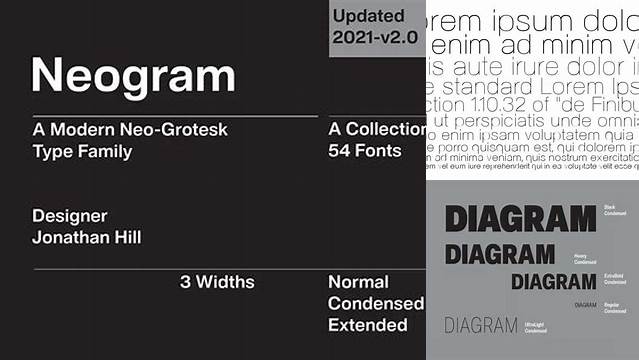
Are you on the hunt for a modern, versatile, and aesthetically pleasing font for your next design project? Well, guys, you've landed in the right spot! We're diving deep into the world of the Neogram font family, a fantastic typeface that's been making waves in the design community. And the best part? We'll guide you on how to snag it for free. So, buckle up and let's get started!
What Makes Neogram Font Family Special?
The Neogram font family isn't just another typeface; it's a thoughtfully crafted design that blends modern sensibilities with timeless elegance. This makes it incredibly versatile, suitable for a wide range of applications. From crafting compelling headlines and body text for websites to designing eye-catching posters and branding materials, Neogram has got you covered. The clean lines and balanced letterforms exude a sense of sophistication and readability, ensuring that your message is not only seen but also understood. What truly sets Neogram apart is its ability to convey both professionalism and approachability, a rare combination in the world of typography. This makes it an ideal choice for businesses and individuals looking to establish a strong, trustworthy brand identity. The font's versatility extends beyond its aesthetic appeal; it's also technically sound, rendering beautifully across various platforms and devices. This is crucial in today's digital landscape, where your designs need to look pixel-perfect on everything from a smartphone to a large desktop monitor. Neogram's designers have clearly paid meticulous attention to detail, ensuring that each character is not only visually appealing but also functional and adaptable. So, if you're looking for a font that can elevate your design projects and communicate your message with clarity and style, Neogram is definitely worth considering. Its blend of modern aesthetics, versatility, and technical excellence makes it a standout choice in the vast world of typography.
Key Features of Neogram:
- Modern and Clean Design: Neogram boasts a contemporary aesthetic with clean lines and a minimalist approach. This makes it perfect for projects that require a sleek and professional look.
- Versatility: One of the biggest strengths of Neogram is its adaptability. It works beautifully for headlines, body text, logos, and more. Whether you're designing a website, a brochure, or a presentation, Neogram can fit right in.
- Readability: A great font should not only look good but also be easy to read. Neogram excels in this area, ensuring that your message is clear and legible, no matter the size or context.
- Multiple Weights and Styles: The Neogram font family typically includes a range of weights (light, regular, bold, etc.) and styles (italic, condensed, etc.). This gives you a plethora of options to play with, allowing you to create visual hierarchy and add emphasis to your designs.
The Neogram font family is a fantastic choice for designers looking for a modern, versatile, and readable typeface. While finding it for free might require a bit of searching, the effort is well worth it. And if you can't find it, there are plenty of excellent alternatives available. Remember, typography is a powerful tool that can significantly impact the overall look and feel of your designs. By choosing the right font and using it effectively, you can elevate your projects and communicate your message with clarity and style. So, go ahead, guys, explore the world of typography and unleash your creative potential!